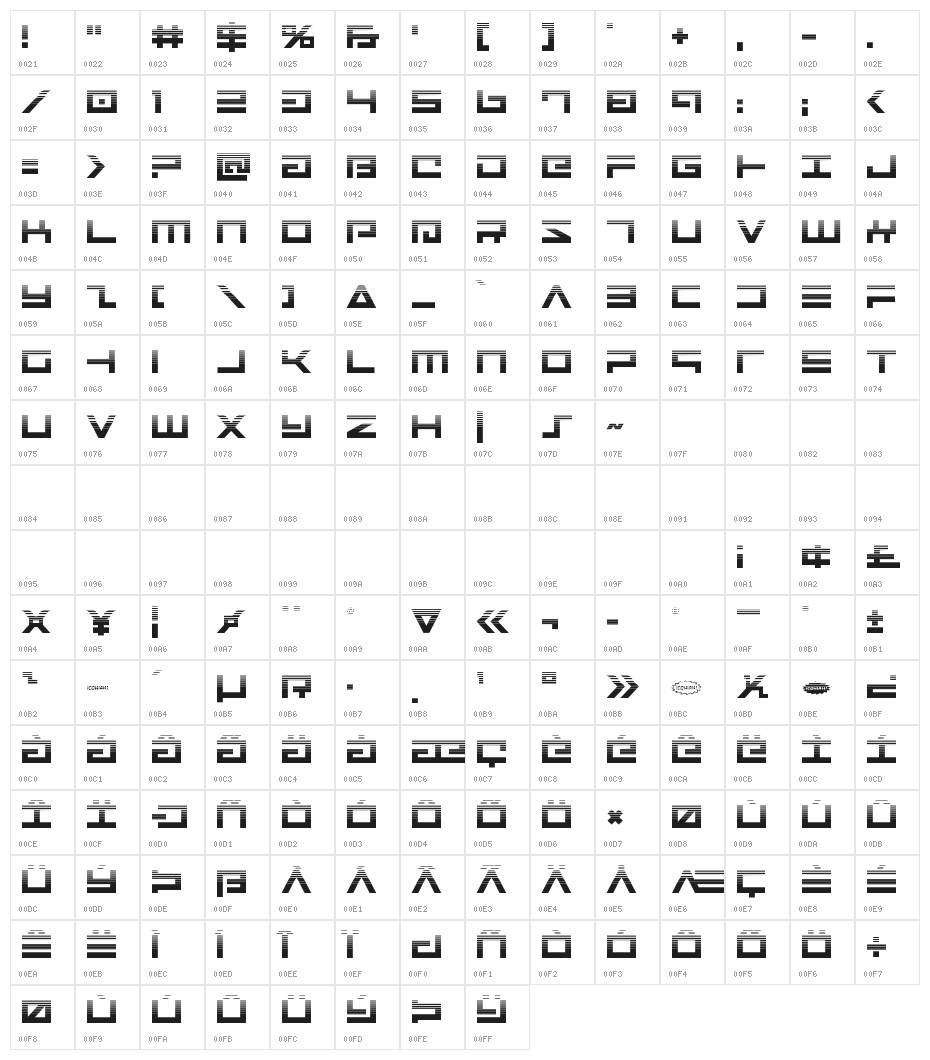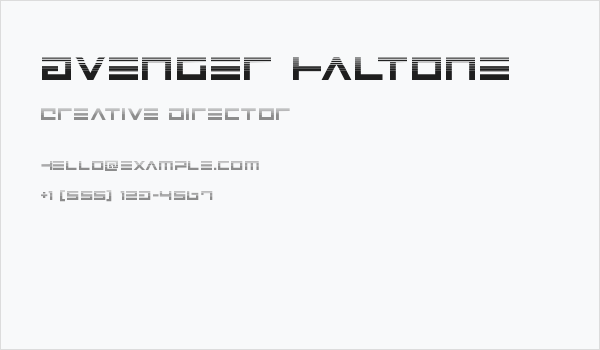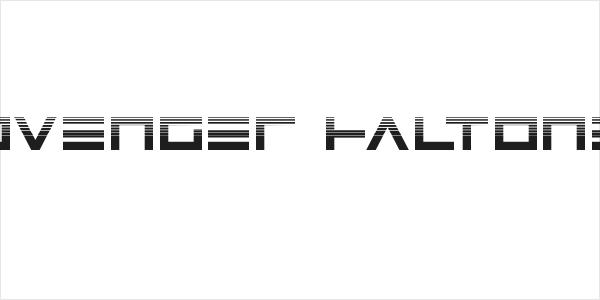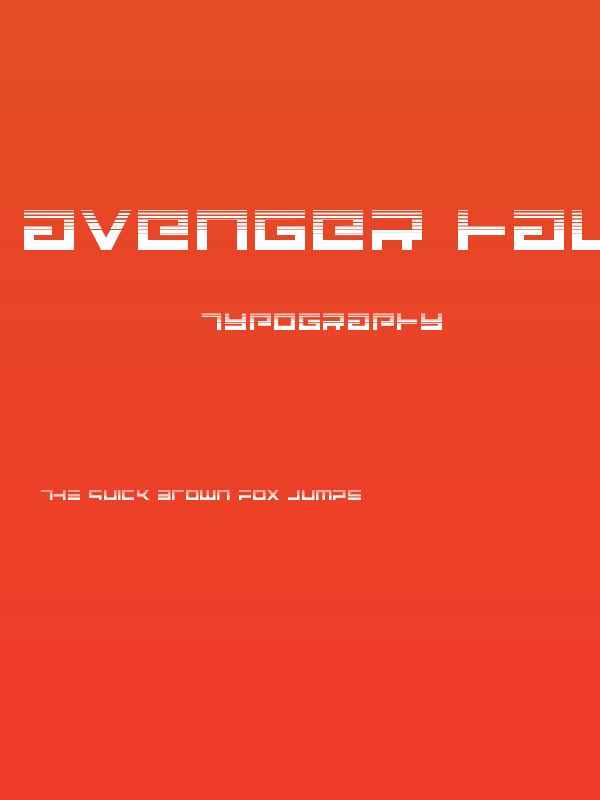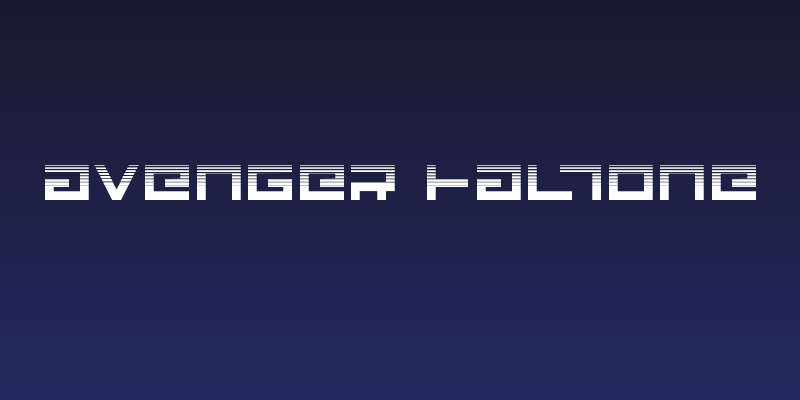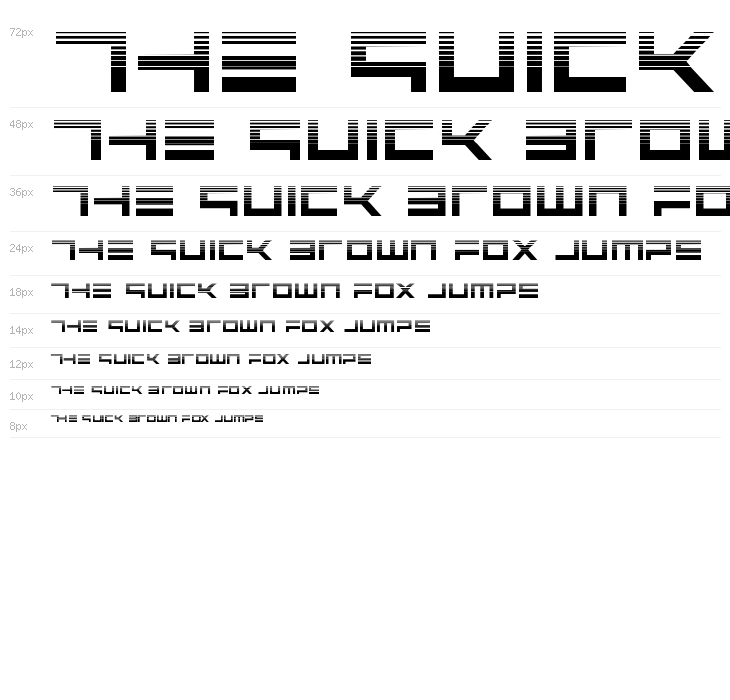
Avenger Haltone Font
Avenger Haltone Description
This font features a futuristic and bold design with a distinct geometric style. The characters are constructed with horizontal lines that create a sense of movement and energy. The uppercase and lowercase letters maintain a consistent height, giving the font a uniform appearance. The numerals and special characters follow the same design principles, ensuring cohesion across all glyphs. The overall aesthetic is modern and dynamic, making it suitable for projects that require a strong visual impact.
| Proposed Projects | Ideal for sci-fi themed designs, tech branding, video game titles, and modern posters. |